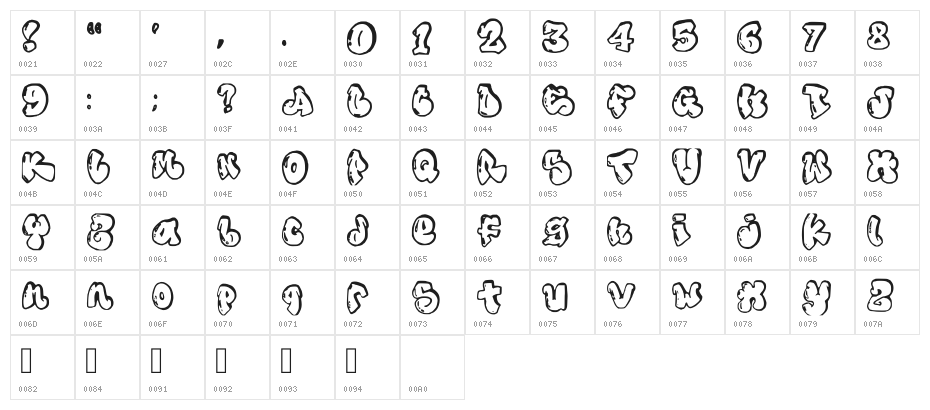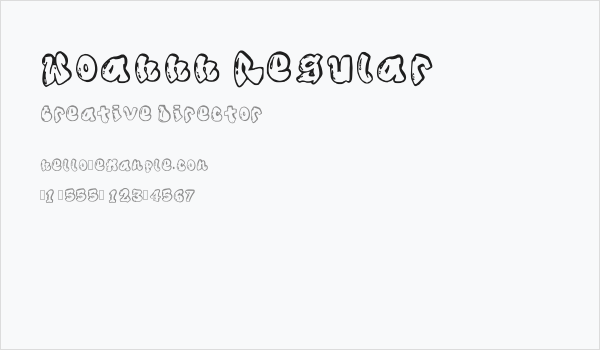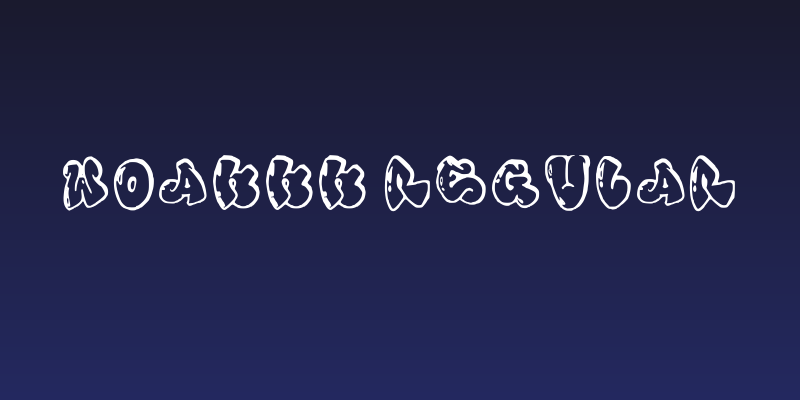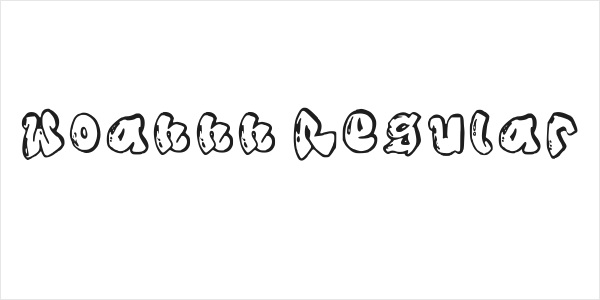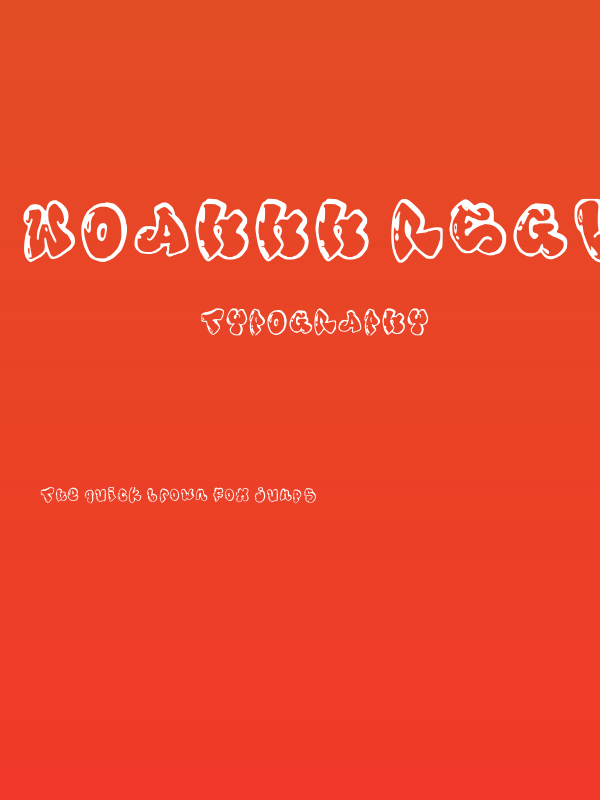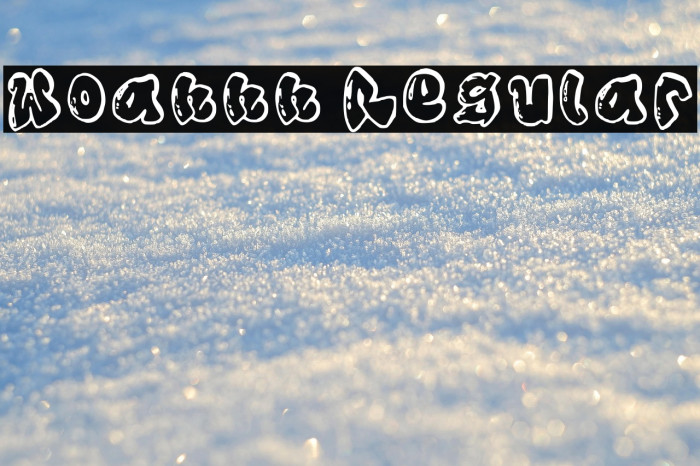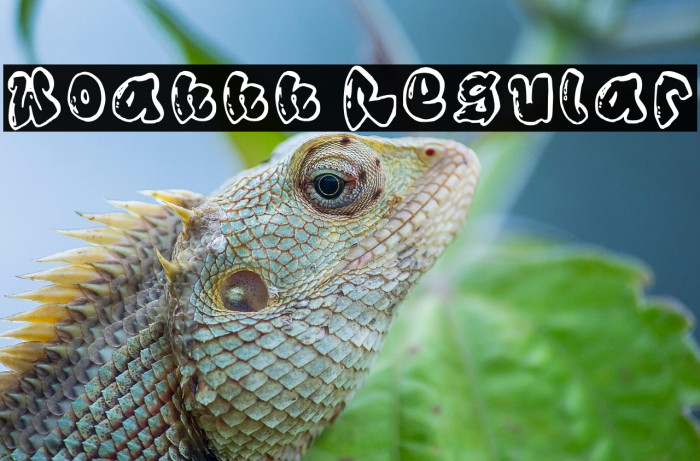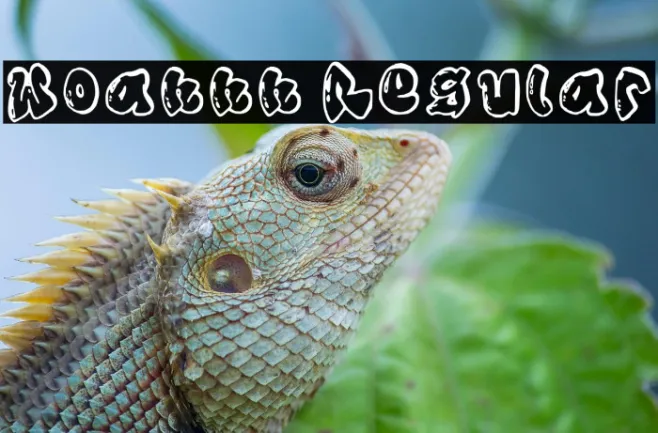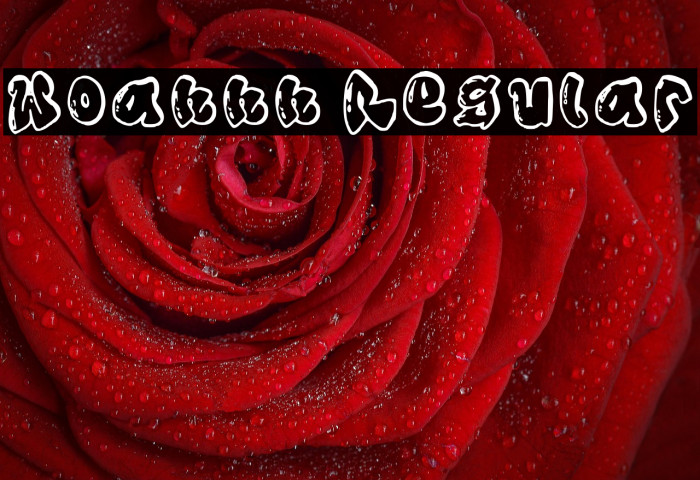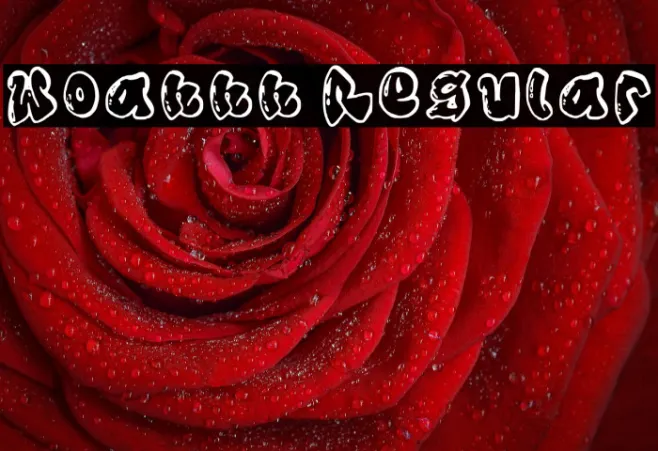
Woahhh Regular Font
Woahhh Regular Description
This font features a bold and playful design with a hand-drawn aesthetic. Each character is filled with irregular shapes and cutouts, giving it a dynamic and energetic feel. The letters are rounded and have a cartoonish quality, making them stand out with a unique personality. The font's style is reminiscent of graffiti or street art, with a sense of movement and spontaneity. It is highly decorative, with a strong visual impact that captures attention. The numbers and special characters maintain the same playful and bold characteristics, ensuring consistency across all elements.
| Proposed Projects | Ideal for projects that require a fun and energetic vibe, such as children's books, comic strips, posters, and branding for creative industries. |